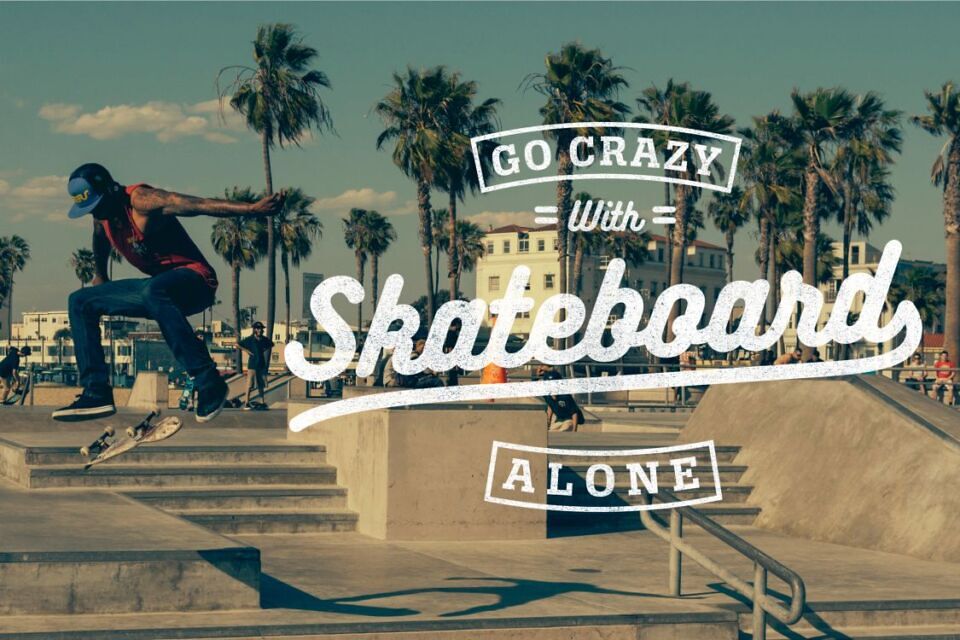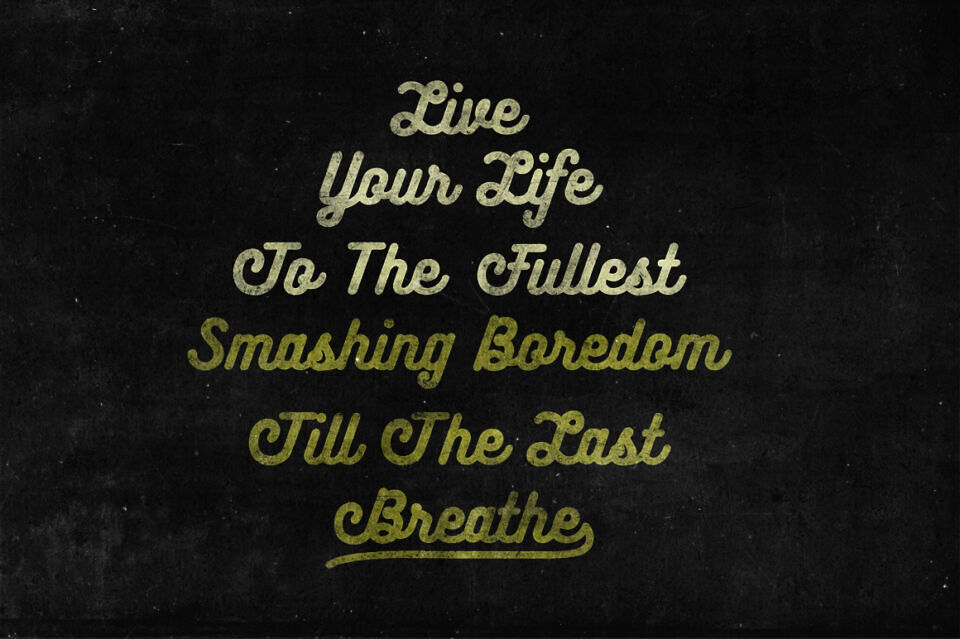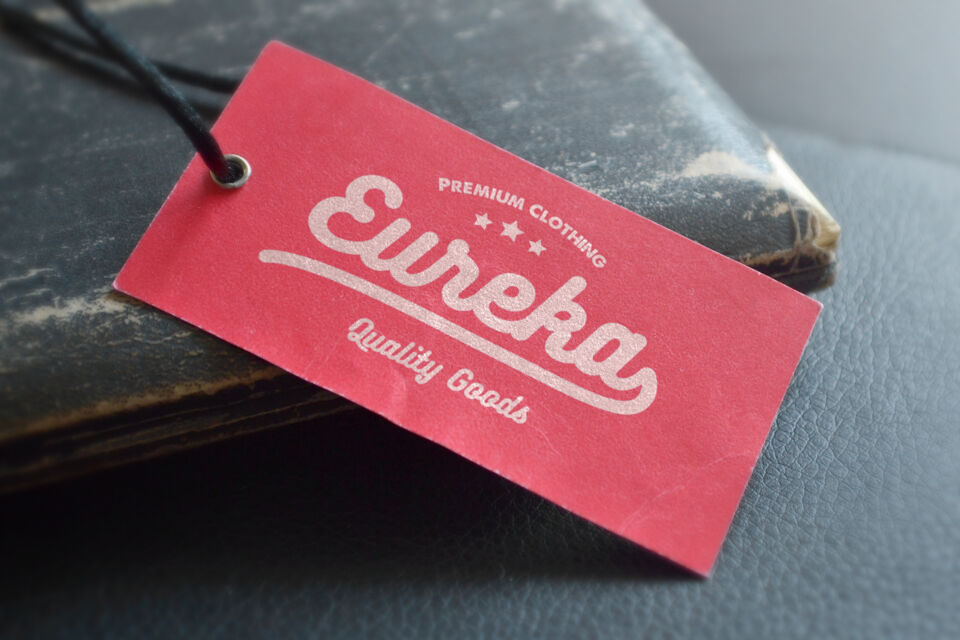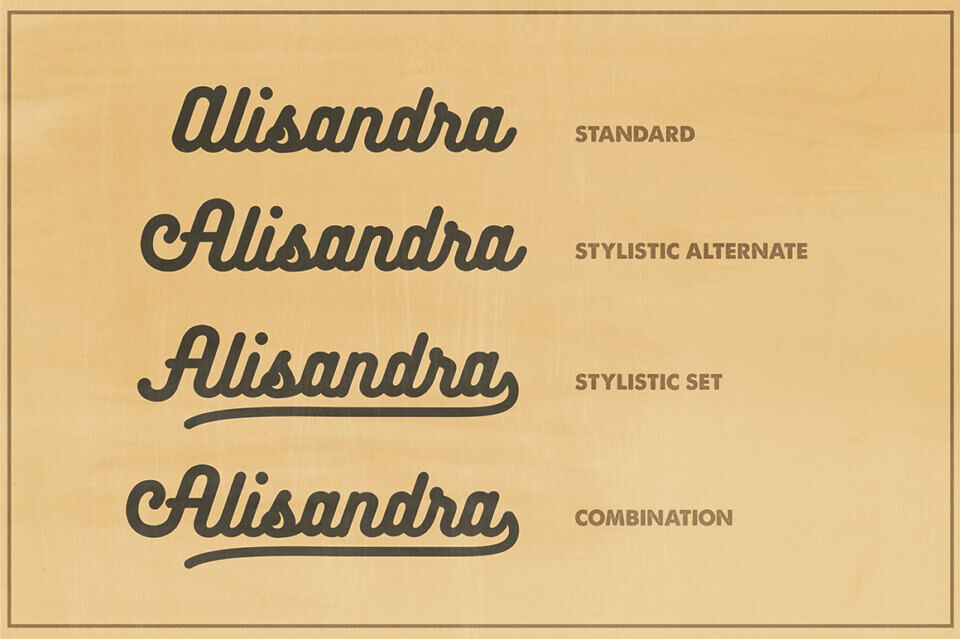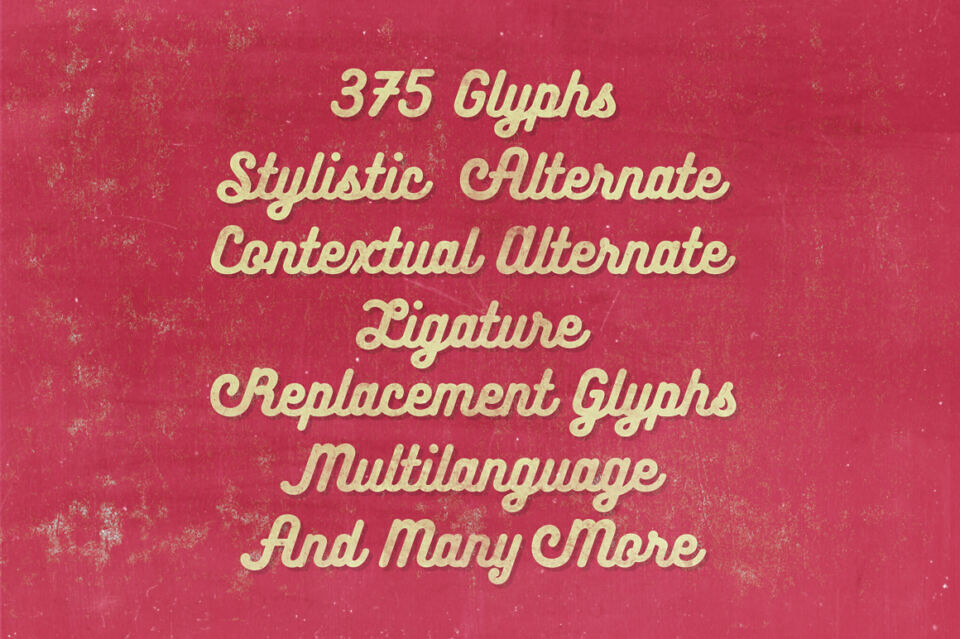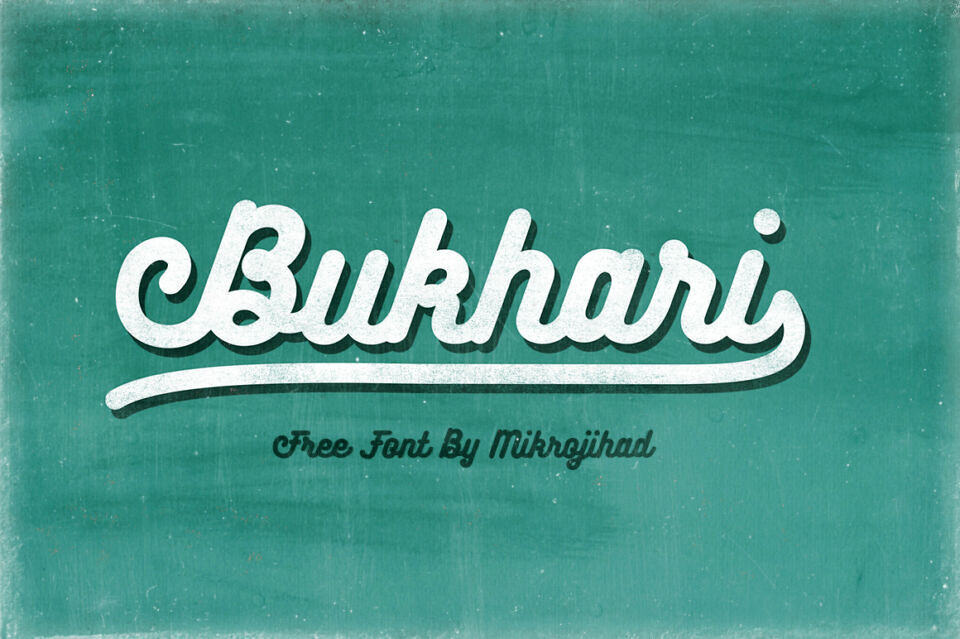
Bukhari Script Font
Bukhari Script is a bold monoline cursive font. The Bukhari typeface is called a “Mouse Lettering Typeface”, because it’s start created from a bold line with a computer mouse.
The Bukhari font works great for any design project, be it web, printing, logotype, posters, badges, signage, bussiness cards, t-shirt design, etc. Contains almost 380 glyphs with several OpenType Features; Contextual Alternate, Stylistic Alternate, Standard Ligature & Fraction, and Cyrillic support.
The OpenType Feature can be used to create your own custom typography of your design. The Bukhari font is a beautiful example of script fonts.